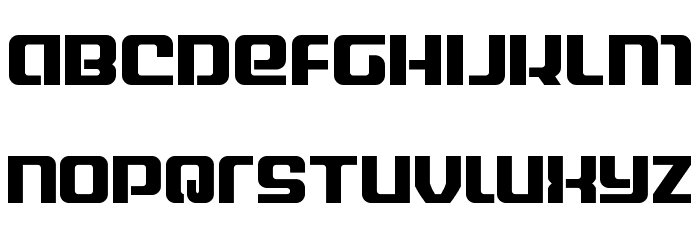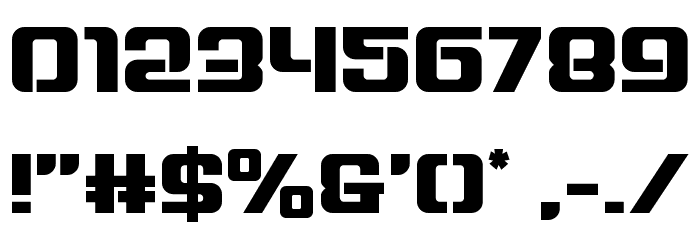
Globe Trekker Font
This font exhibits a bold and futuristic design, characterized by its geometric and block-like structure. The letters are uniformly thick, with rounded edges that soften the overall appearance. The uppercase and lowercase letters maintain a consistent style, with a slight distinction in size rather than form. Numbers and special characters follow the same design principles, ensuring a cohesive look across all characters. The font's modern aesthetic is suitable for projects that require a strong visual impact, such as technology branding or sci-fi themed designs.
A bold, futuristic font with geometric, block-like characters and rounded edges.
- Proposed Projects: Ideal for technology branding, sci-fi themed designs, video game interfaces, and modern advertising campaigns.